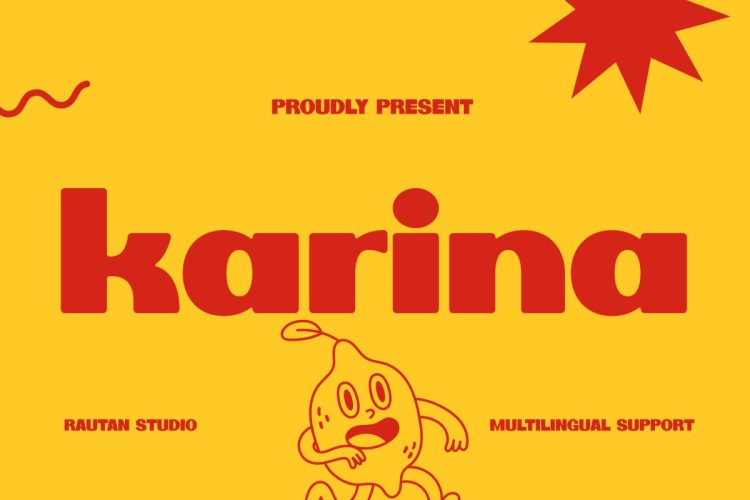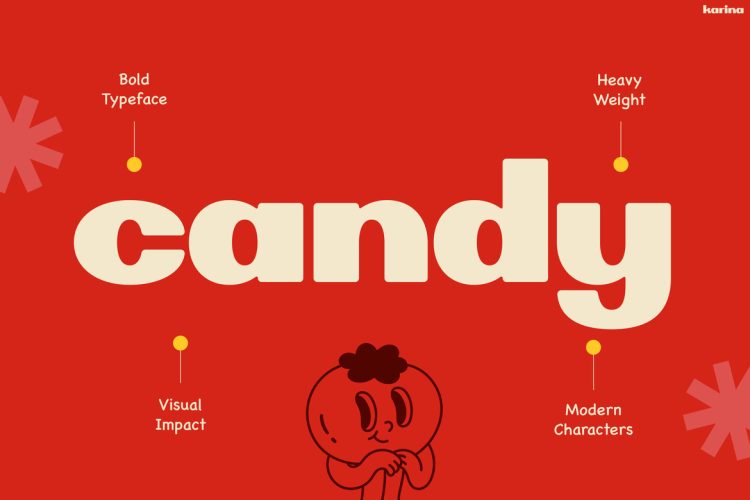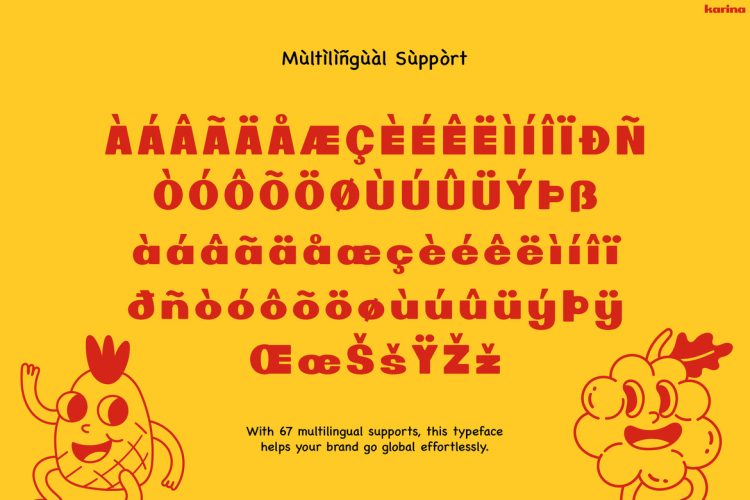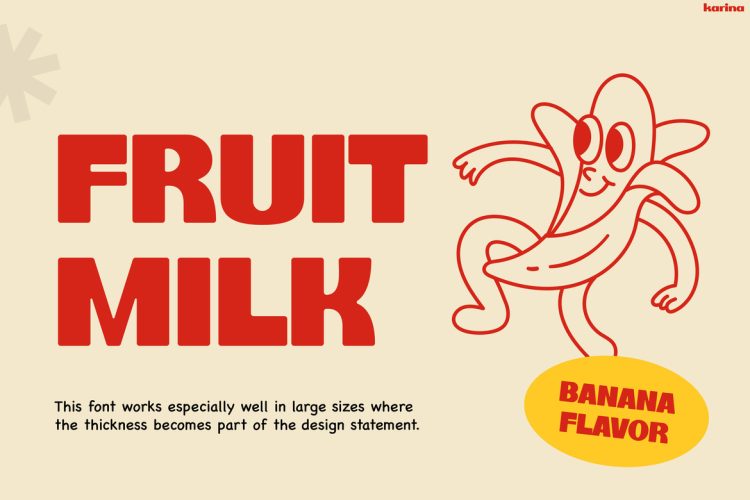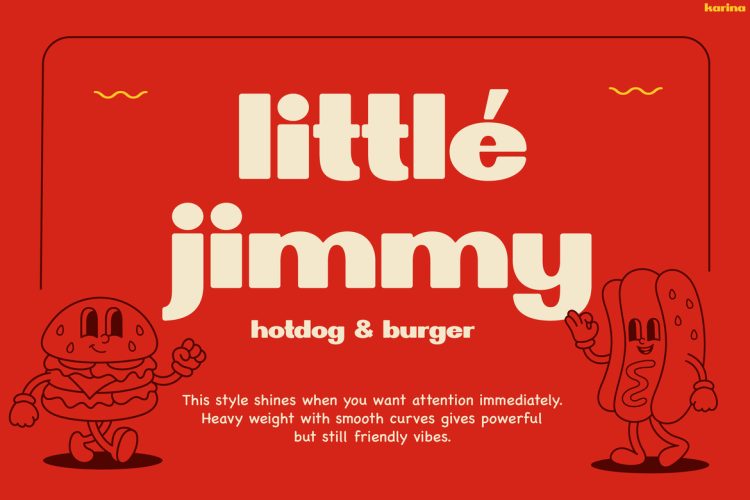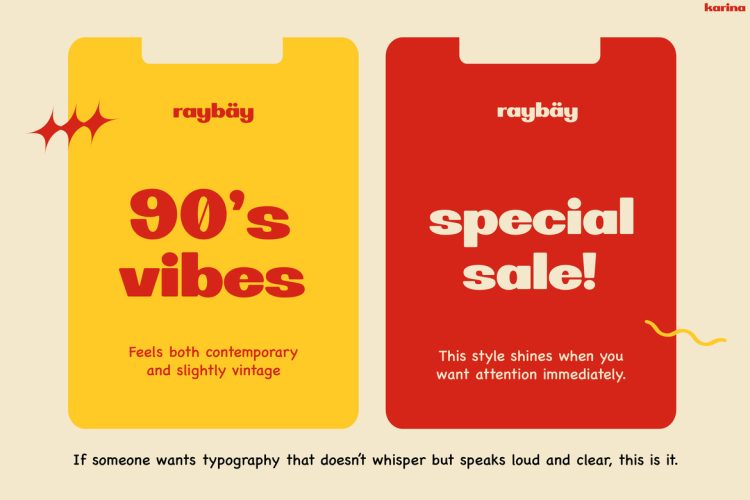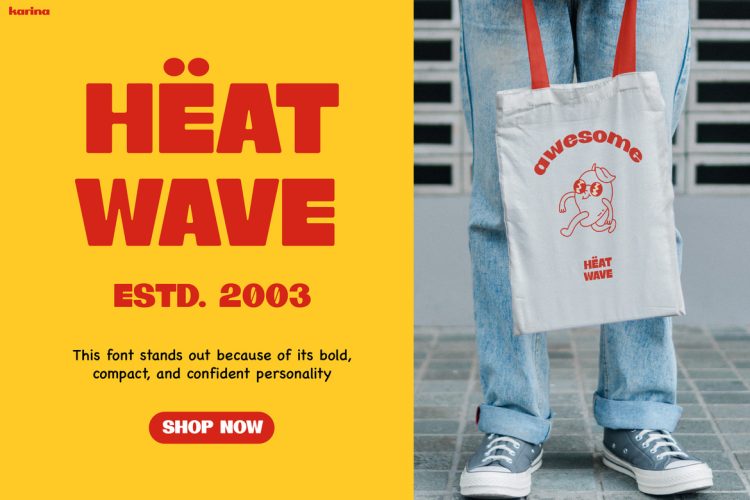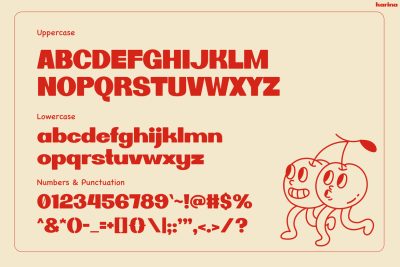
Karina โ Playful Retro Display Font with Bold Personality
Retro Font KARINA instantly captures attention with its bold, bubbly shapes and cheerful retro aesthetic inspired by classic 90s visuals. Its thick curves, soft edges, and expressive letterforms create a friendly yet striking appearance that stands out in any layout. What makes this font unique is its ability to balance nostalgic charm with modern usabilityโmaking it visually engaging while remaining highly readable. The playful character illustrations and vibrant color pairing seen in the previews highlight KARINAโs versatility in delivering fun, energetic, and emotionally engaging designs. With support for 67 languages, this font is not only stylish but also highly functional for global creative projects.
KARINA is a bold retro display font designed to bring joy, warmth, and personality into your designs. Its chunky letterforms and smooth curves create a strong visual presence, making it perfect for eye-catching headlines and branding. The font radiates positivity and friendliness, enhanced by its nostalgic retro vibe that feels both timeless and trendy. Whether used in vibrant promotional graphics, packaging, or digital content, KARINA consistently delivers a fun and memorable impact.
KARINA is ideal for designers, brand creators, and content makers who want to create playful and standout visuals. It works exceptionally well for childrenโs products, food and beverage branding, posters, social media graphics, merchandise, retro-themed projects, and advertising campaigns. If your goal is to evoke happiness, energy, and a touch of vintage charm, KARINA is the perfect choice.
Retro Font KARINA is more than just a typefaceโitโs a creative tool that transforms ordinary designs into lively, engaging experiences. Add it to your collection today and start creating bold, joyful visuals that truly connect with your audience.